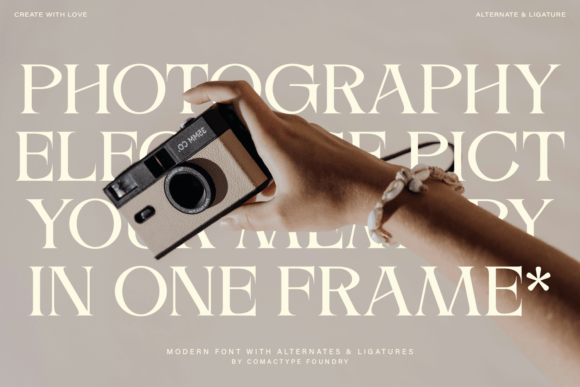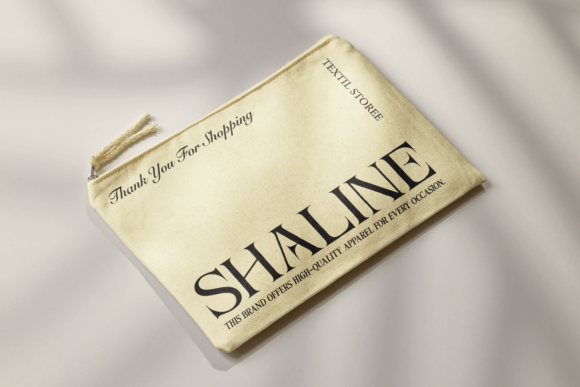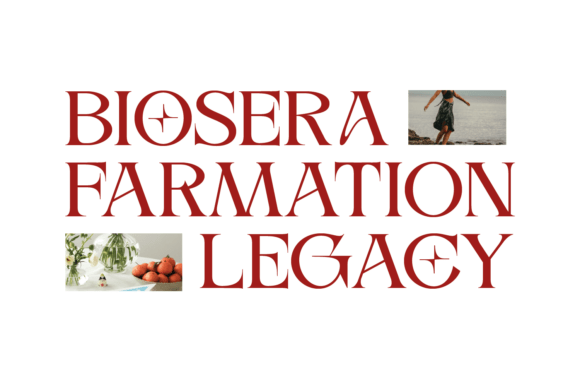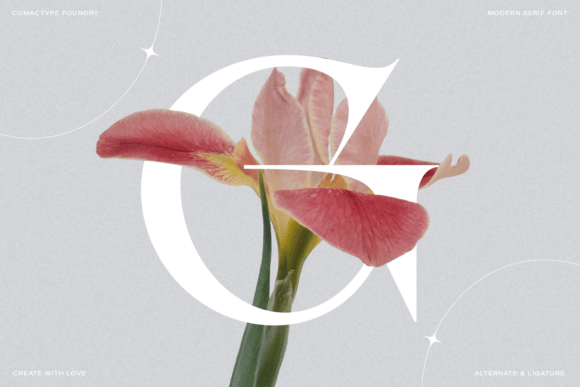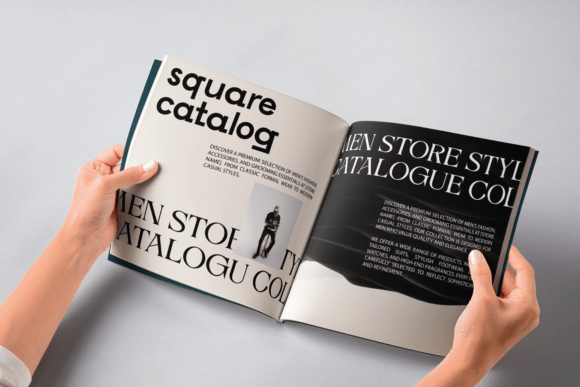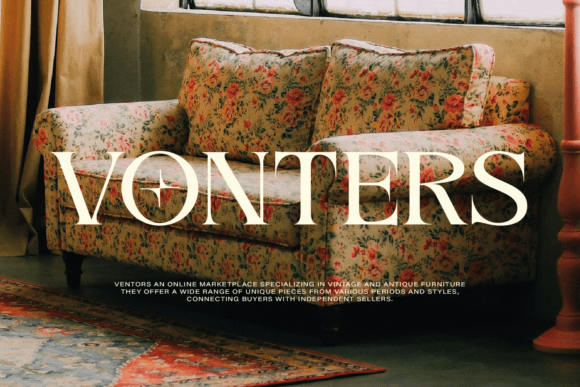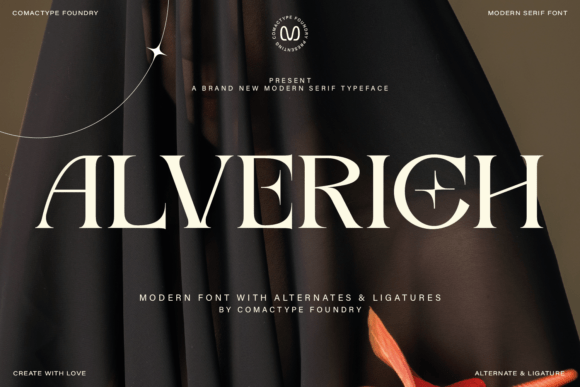
Introducing Alverich Font: A Modern Serif Typeface for Sophisticated Designs
In the world of typography, a well-crafted font can elevate a design from ordinary to extraordinary. Alverich, a modern serif typeface designed by Comactype Foundry, is a shining example of typographic excellence. With its sophisticated and elegant aesthetic, Alverich offers a timeless yet contemporary appeal that is sure to captivate designers and crafters alike.
Alverich’s design is characterized by sharp, well-defined serifs and a balanced contrast between thick and thin strokes. This harmonious balance gives the typeface a refined and luxurious feel, making it perfect for high-end branding, editorial design, and luxury-themed projects. The font’s classic serif elegance is infused with modern design details, resulting in a unique and captivating visual identity.
Comprehensive Character Set
Alverich includes a complete set of uppercase and lowercase letters, numerals, punctuation, and special characters, ensuring versatility for various design applications. Whether you’re working on a corporate brand identity, a fashion magazine, or an invitation, Alverich provides the necessary characters to bring your design to life.
Alternates and Ligatures
One of Alverich’s standout features is its selection of alternates and ligatures. The alternates introduce unique letterforms with stylish curves and decorative elements, adding a touch of elegance and sophistication to your designs. These alternate characters provide designers with creative flexibility, allowing them to experiment with different typographic styles and moods.
The ligatures, on the other hand, seamlessly blend characters to create smooth, refined typography. By combining specific letter pairs, ligatures eliminate awkward spacing and create a visually appealing flow, further enhancing the font’s sophisticated nature. Whether you’re designing a luxury brand logo, a wedding invitation, or a high-end editorial spread, Alverich’s ligatures will elevate your typography to new heights.
Design Applications
Alverich’s versatility and elegance make it an excellent choice for a wide range of design applications, including:
• Branding: Create a lasting impression with Alverich’s sophisticated and luxurious aesthetic, perfect for high-end brands and corporate identities.
• Editorial Design: Elevate your magazine, newspaper, or book designs with Alverich’s refined typography and elegant serifs.
• Invitations: Make a statement with Alverich’s beautiful ligatures and alternates, ideal for wedding invitations, formal events, and luxury gatherings.
• Luxury-themed Projects: Add a touch of sophistication to your designs with Alverich’s classic serif elegance and modern design details.
Why Choose Alverich?
With its combination of classic serif elegance and modern design details, Alverich is the perfect choice for designers and crafters seeking a sophisticated and versatile typeface. Here are just a few reasons why Alverich stands out:
• Unique Design: Alverich’s sharp serifs, balanced contrast, and elegant alternates and ligatures make it a one-of-a-kind typeface.
• High-end Aesthetic: Perfect for luxury brands, editorial designs, and high-end projects, Alverich exudes sophistication and refinement.
• Creative Flexibility: With a range of alternates and ligatures, Alverich provides designers with the creative freedom to experiment and push the boundaries of typographic design.
In conclusion, Alverich is a modern serif typeface that embodies the perfect blend of classic elegance and contemporary design. With its comprehensive character set, beautiful alternates and ligatures, and versatile design applications, Alverich is an excellent addition to any designer’s font library. Whether you’re working on a high-end brand identity, editorial design, or luxury-themed project, Alverich is sure to elevate your typography and leave a lasting impression.